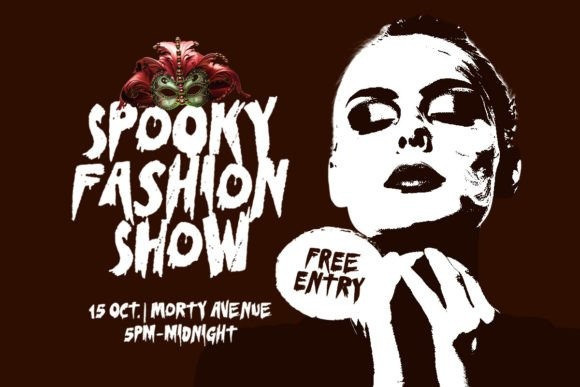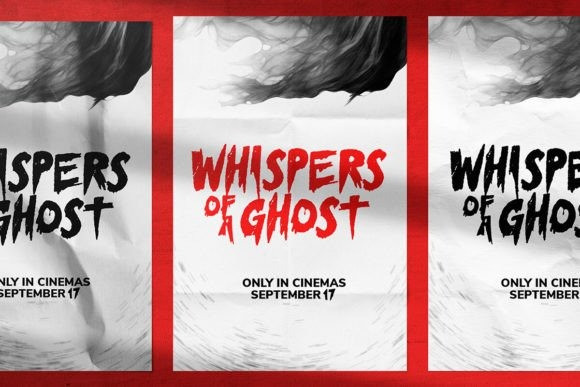
Horier Time Font – Unveil the depths of terror and embrace the macabre with this latest font creation, HorierTime; a mesmerizing bloody horror display font. Prepare to embark on a spine-tingling journey into the darkest realms of design, where fear and fascination intertwine.